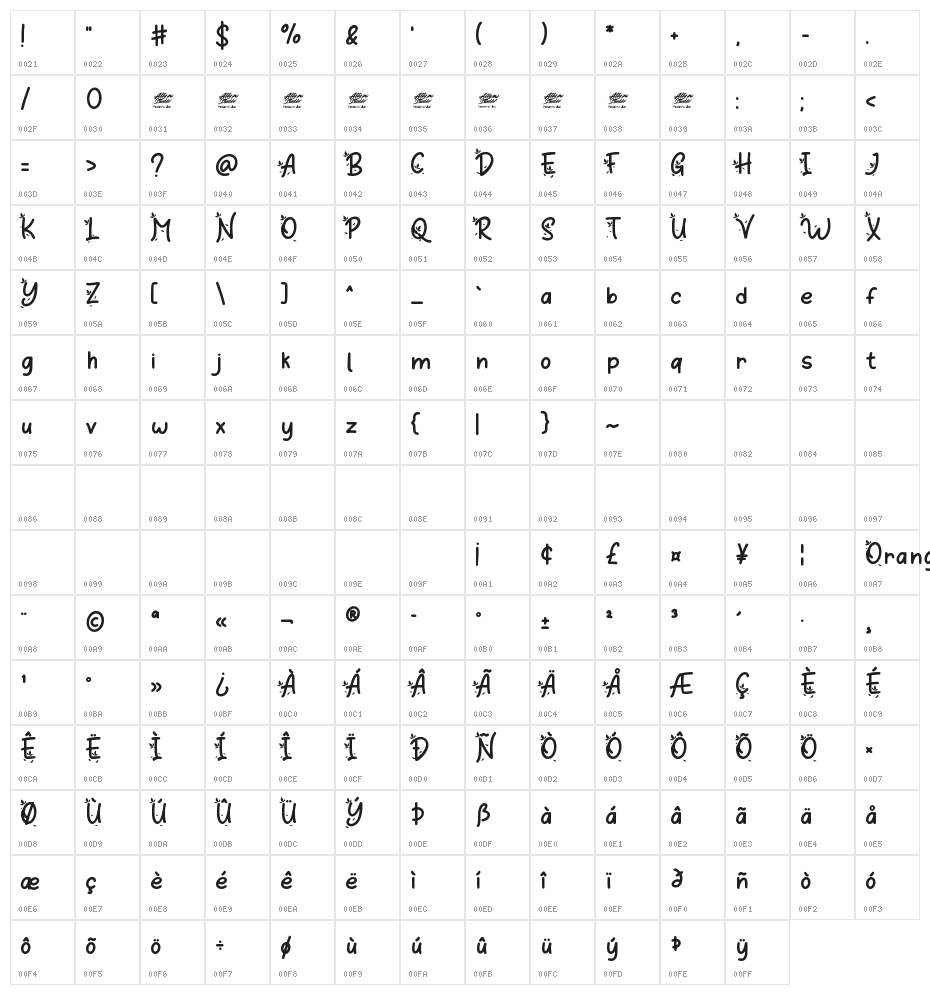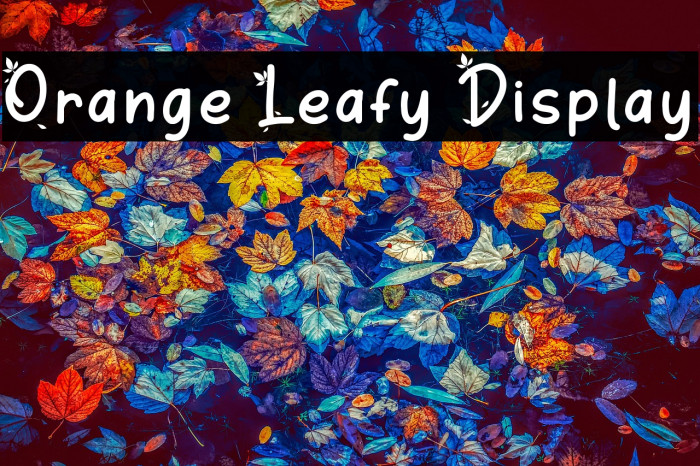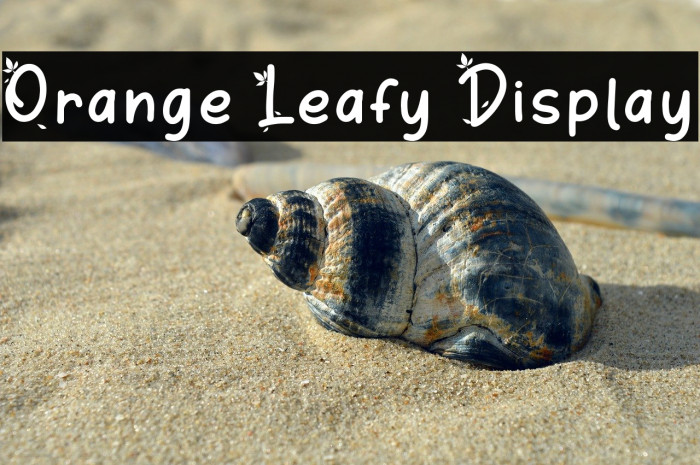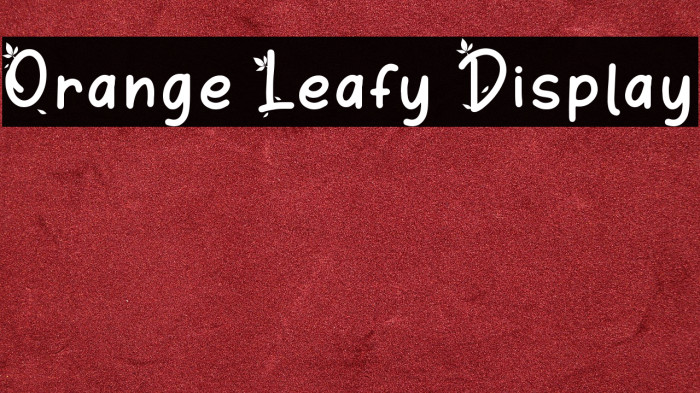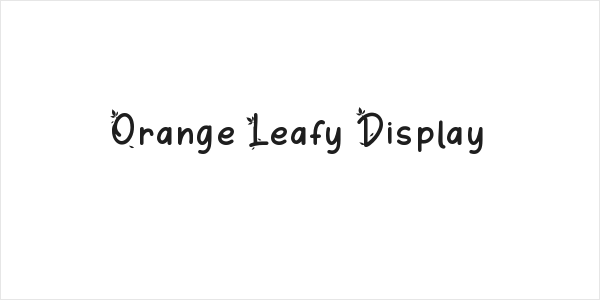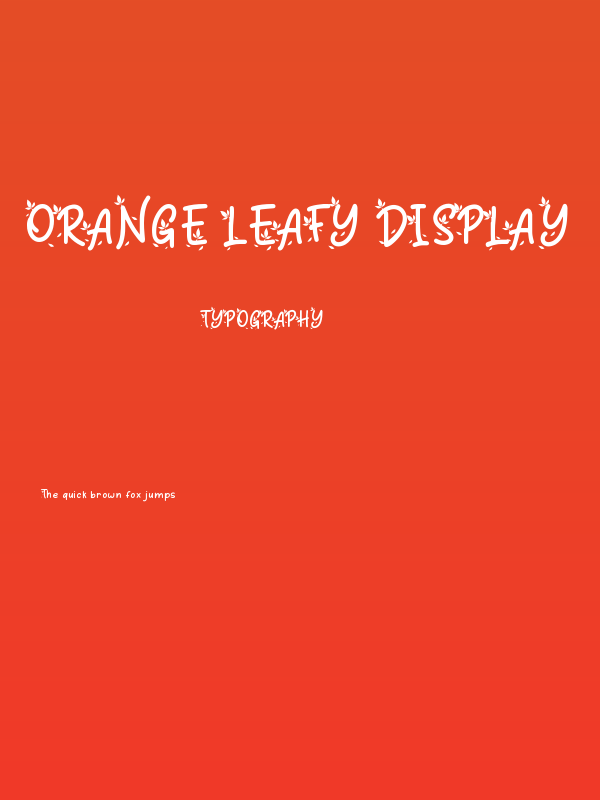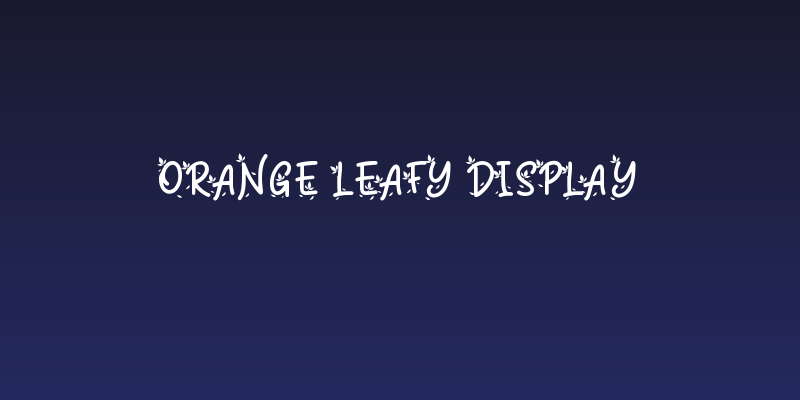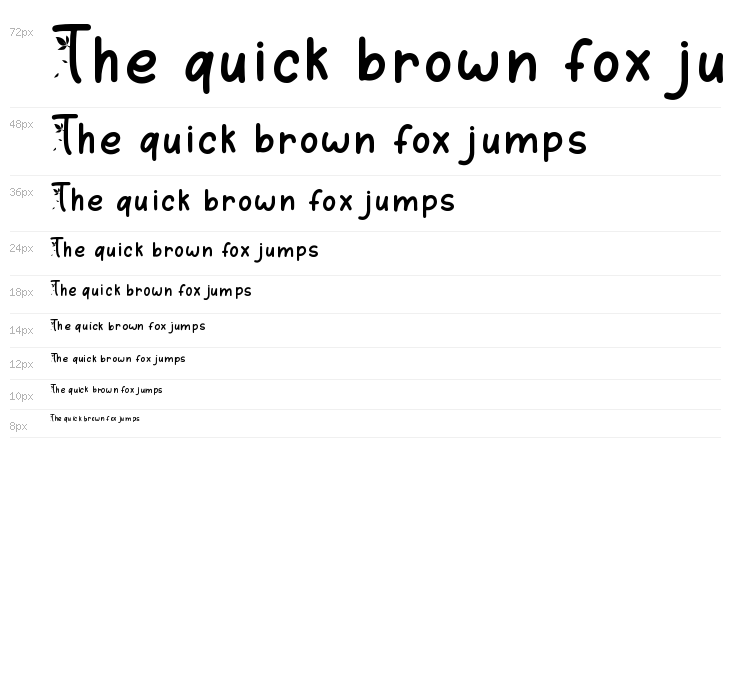
Orange Leafy Display Font
Orange Leafy Display Description
This font features a playful and decorative style, with uppercase letters adorned with small leaf-like embellishments that add a whimsical, organic touch. The lowercase letters are smooth and rounded, maintaining a friendly and approachable appearance. The overall design is bold and eye-catching, making it suitable for creative and informal projects. The characters are well-spaced, ensuring readability while maintaining the decorative elements. This font is ideal for projects that require a touch of nature or a playful aesthetic.
| Proposed Projects | Ideal for greeting cards, children's book covers, eco-friendly brand logos, and playful event invitations. |